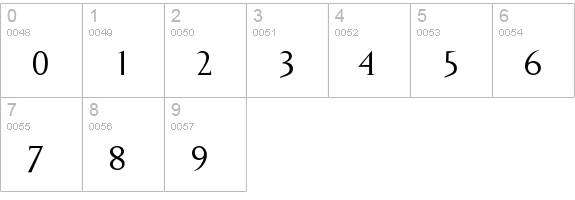
KopyKattKut-Regular Katt Kut-Regular Font Details
KopyKattKut-Regular Katt Kut-Regular is the standard, neutral variant in the KopyKattKut typeface family \xE2\x80\x94 well suited to general body text, paragraphs, and standard typographic work.
KopyKattKut-Regular Katt Kut-Regular font is a versatile and stylish typeface that adds a touch of sophistication to any design project. Its clean lines and elegant curves make it perfect for a wide range of applications, from branding to editorial design. What sets KopyKattKut-Regular Katt Kut-Regular font apart is not only its modern aesthetic but also the fact that it is available for free download at FontsMarket.com. This means that you can easily access this high-quality font without any cost, making it a valuable addition to your font library. Whether you're working on a logo, website, or print materials, KopyKattKut-Regular Katt Kut-Regular font offers the perfect balance of professionalism and creativity. Its timeless design ensures that your projects will stand out and make a lasting impression on your audience. Download this font today and elevate your designs with ease!